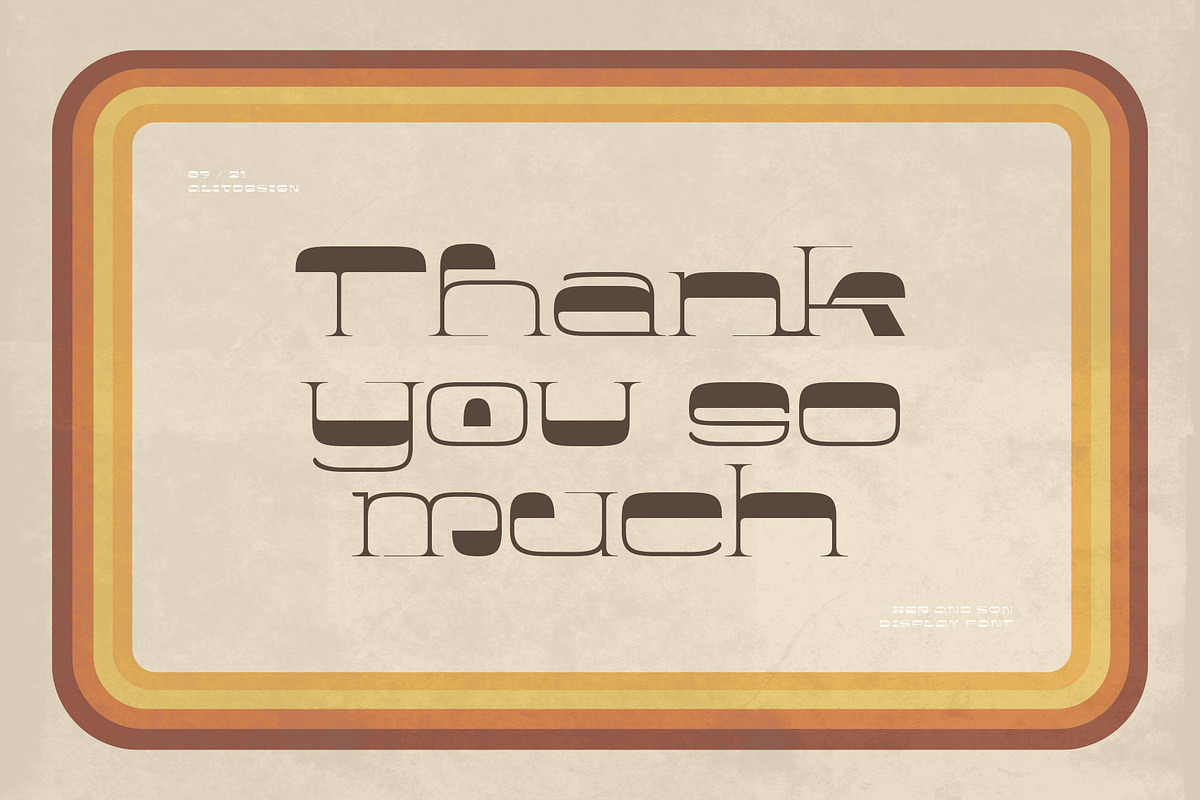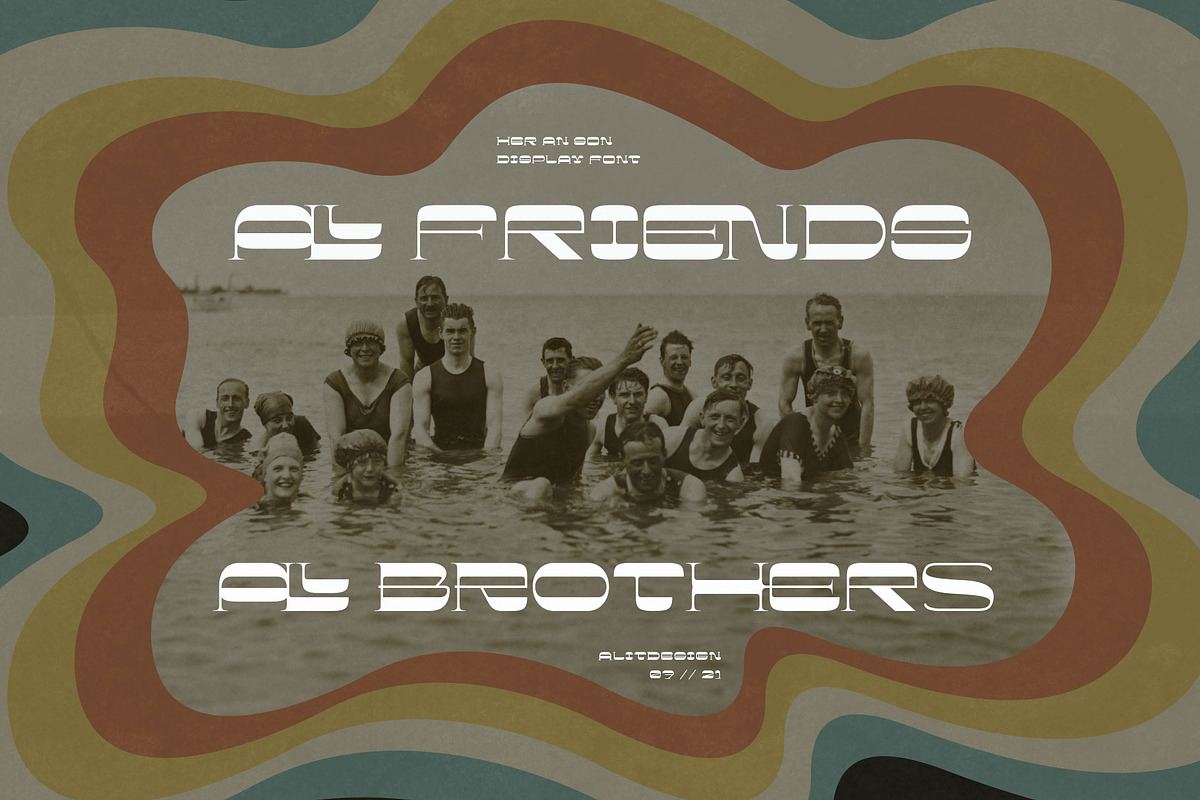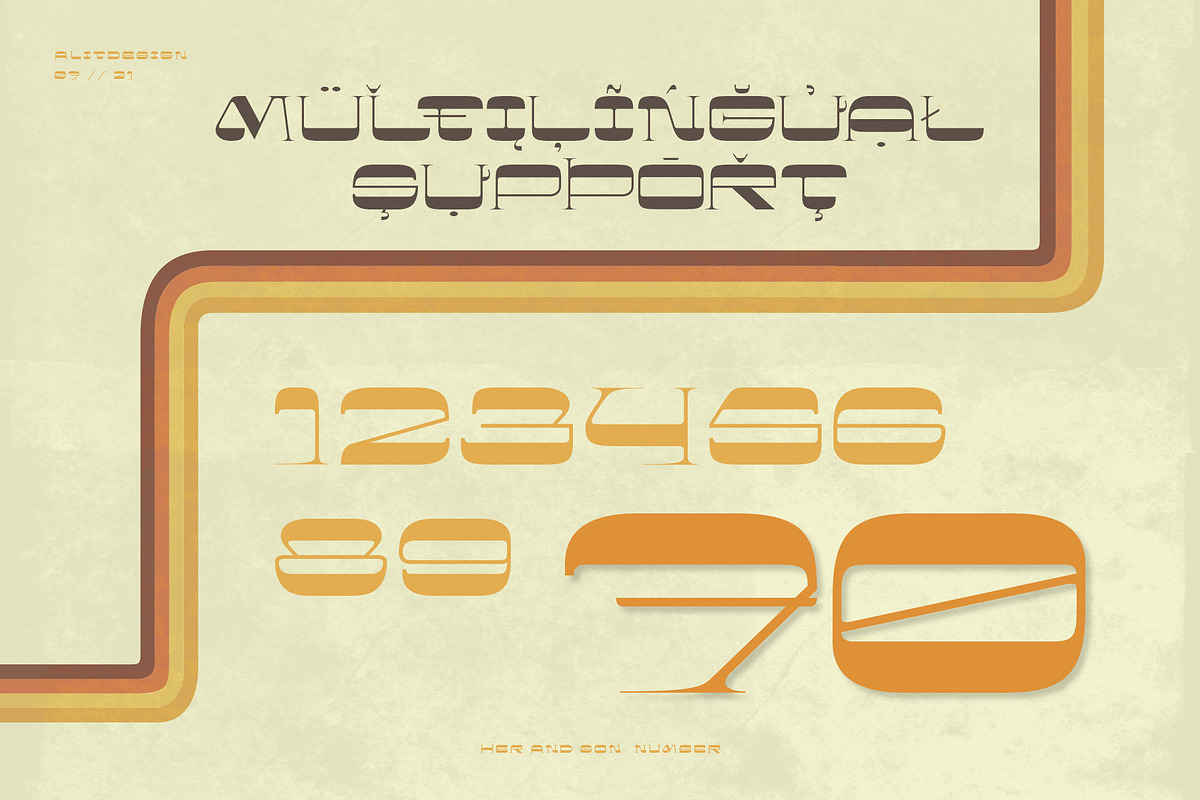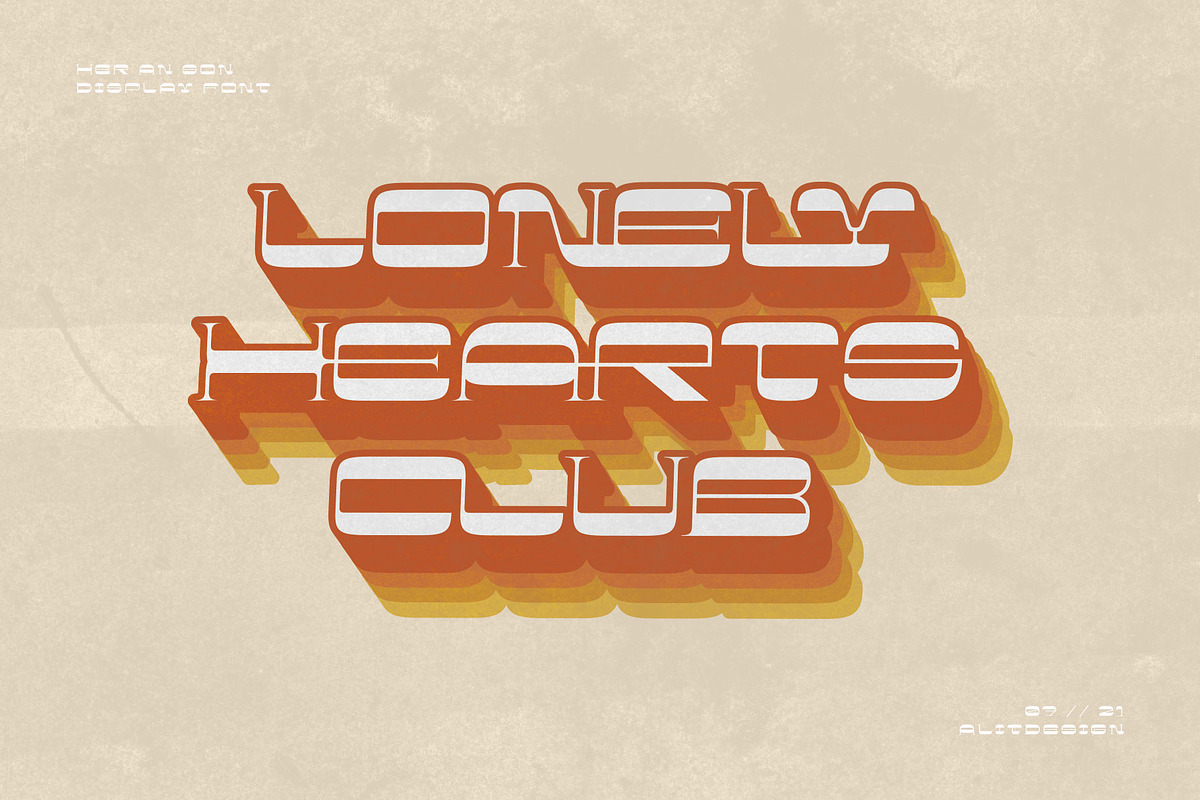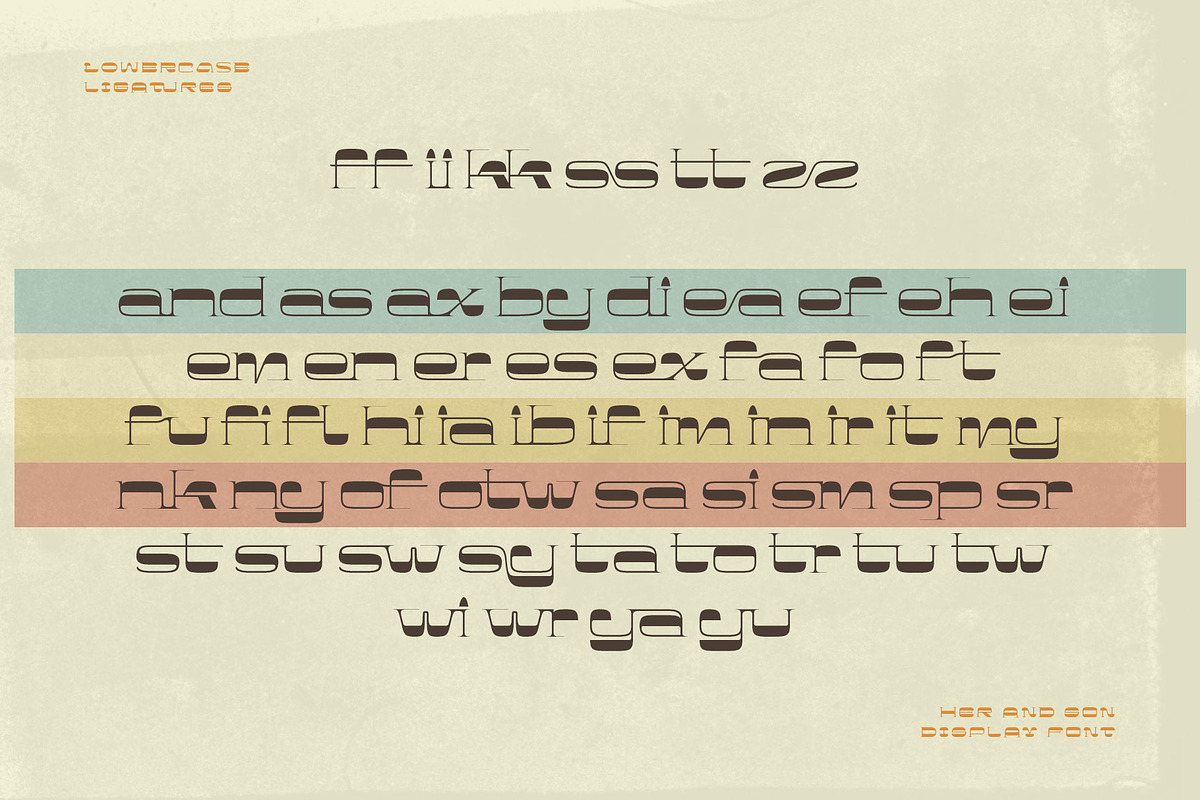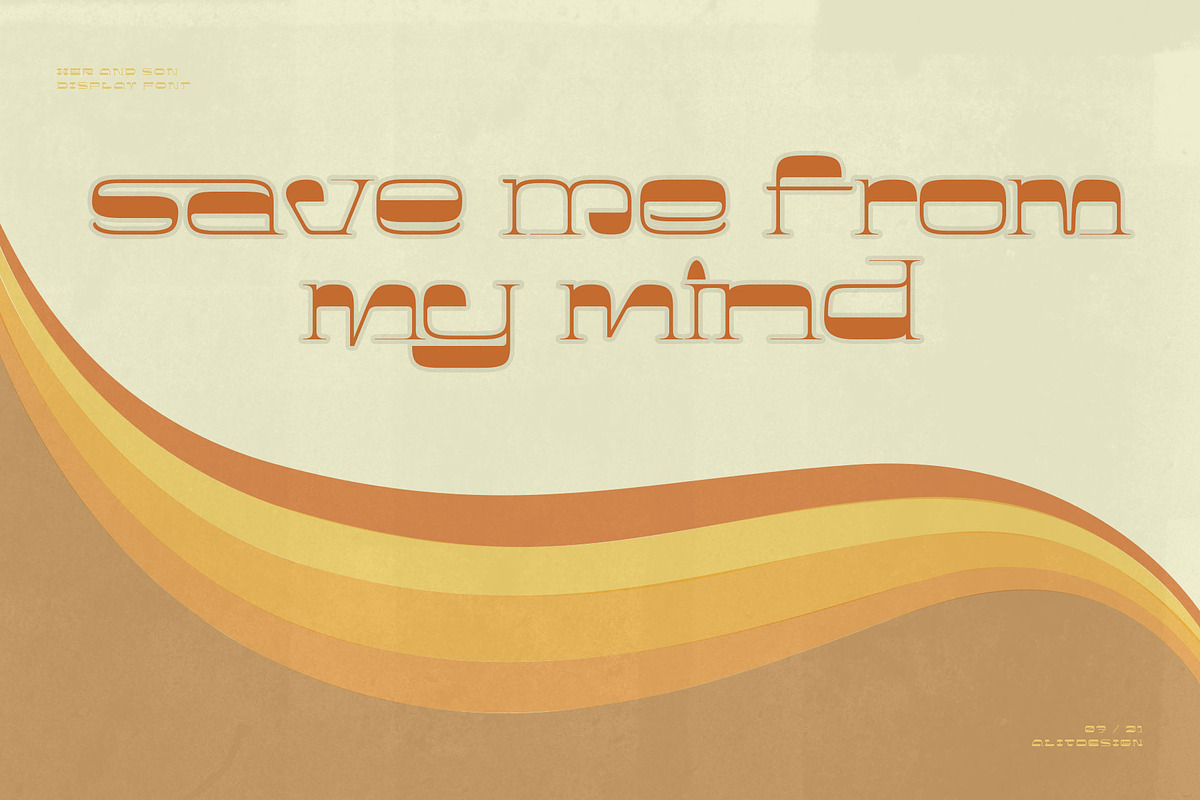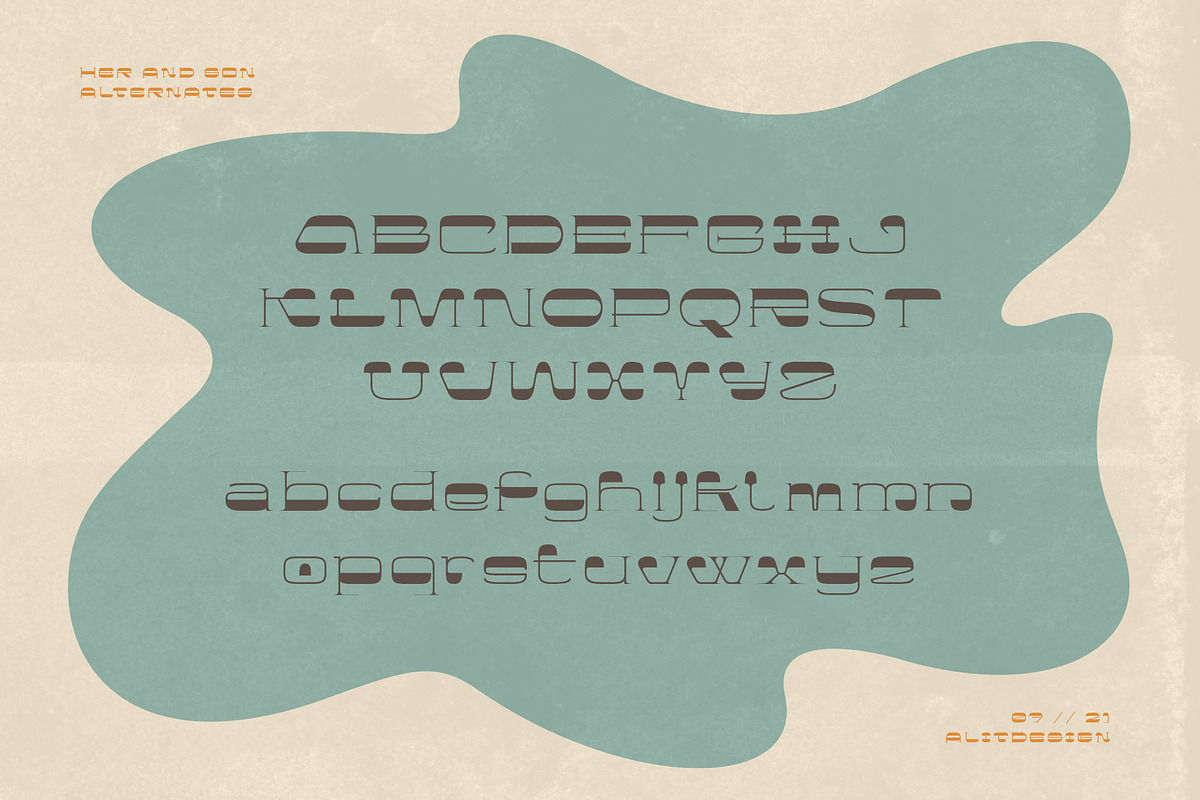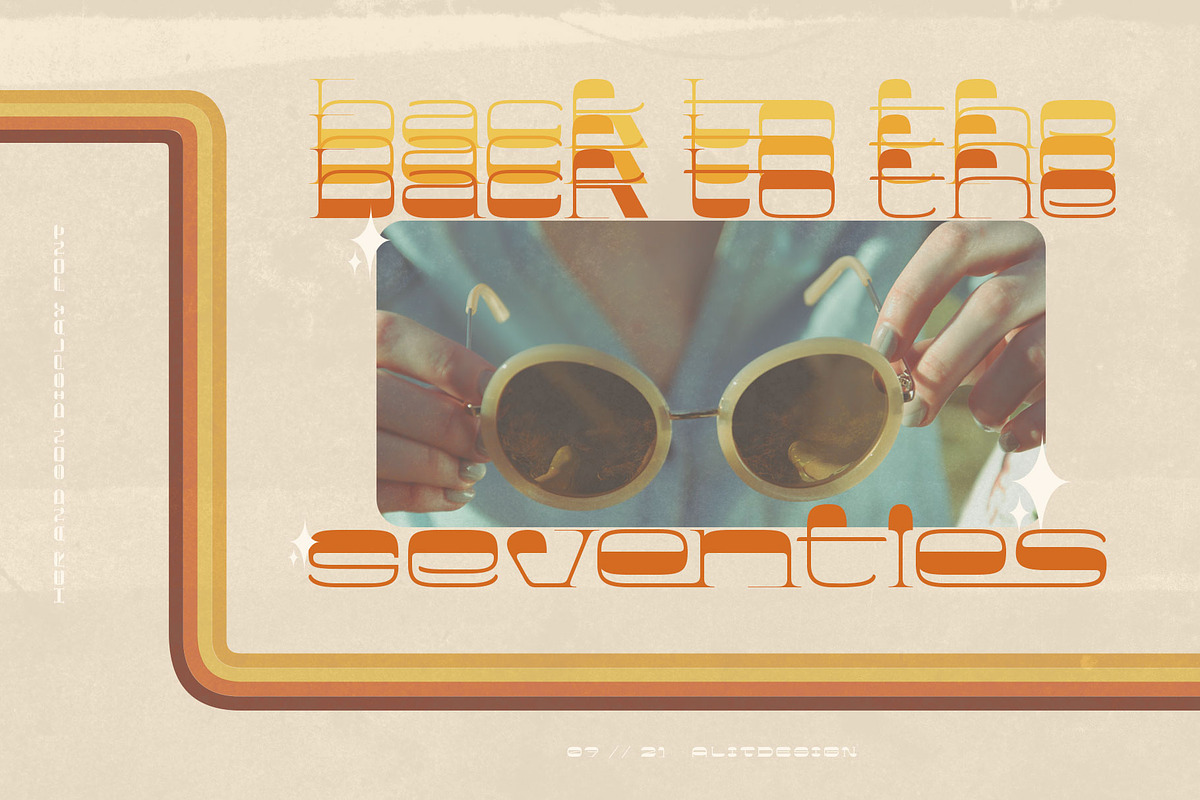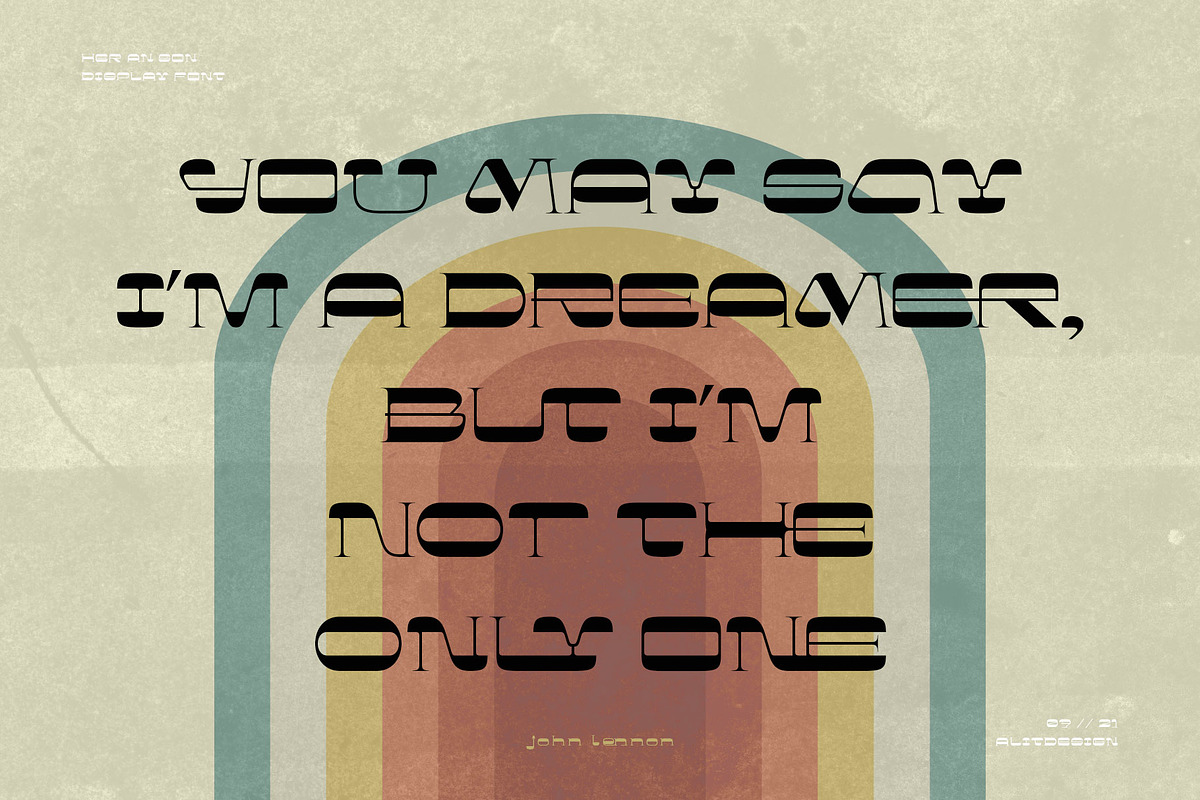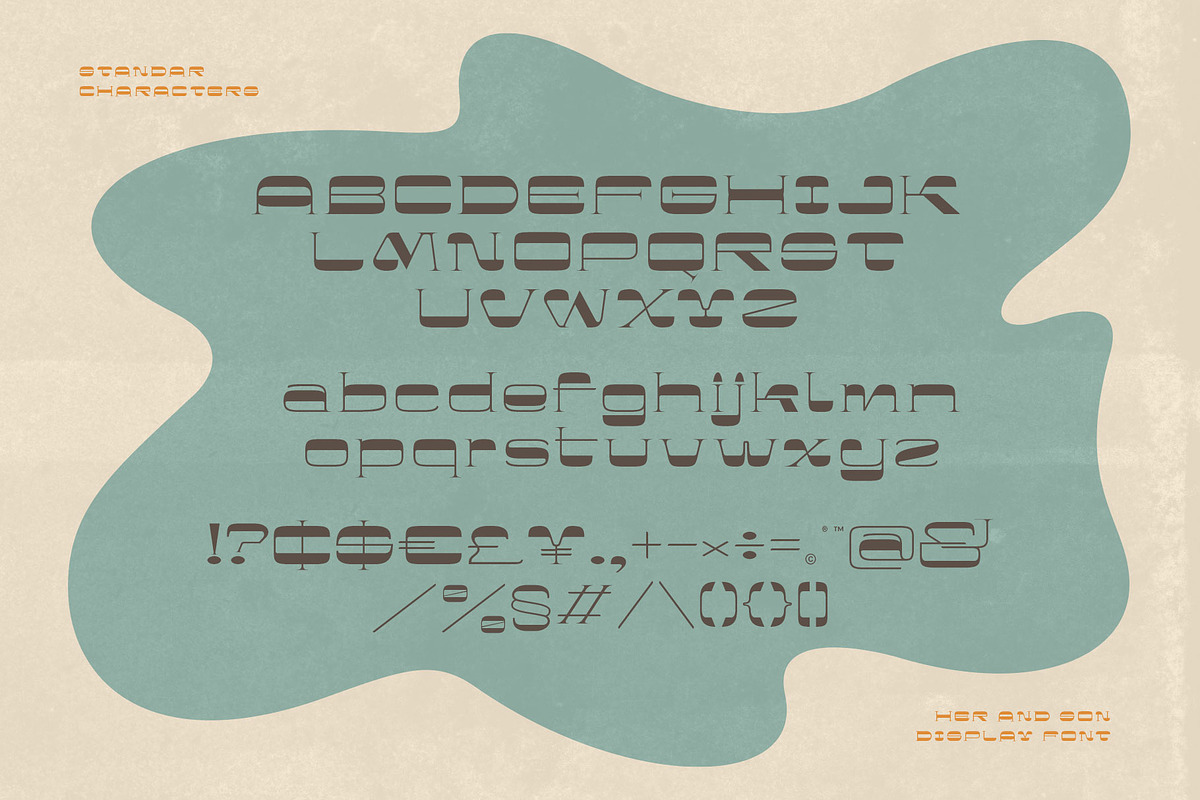
Her and Son
Introducing Her and Son Typeface. This font is inspired by the design styles of the 70s. The style is retro, groovy, classic, not serious but has aesthetic and unique value, besides that the "Her and Son" font is very easy to remember and becomes the image of a design.
Her and Son Typeface is very good for being your font collection because this font is very unique and easy to apply to any media that has a design concept that is not so serious, groovy, classic, retro and unique.